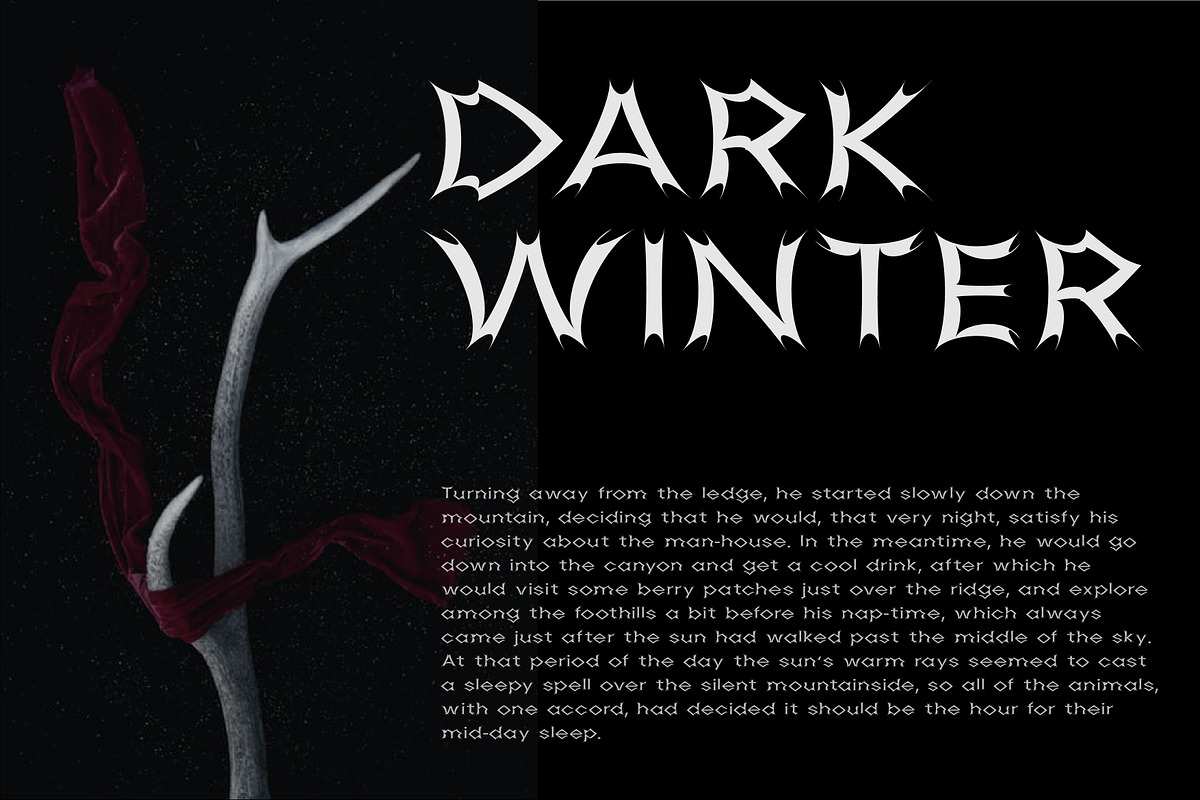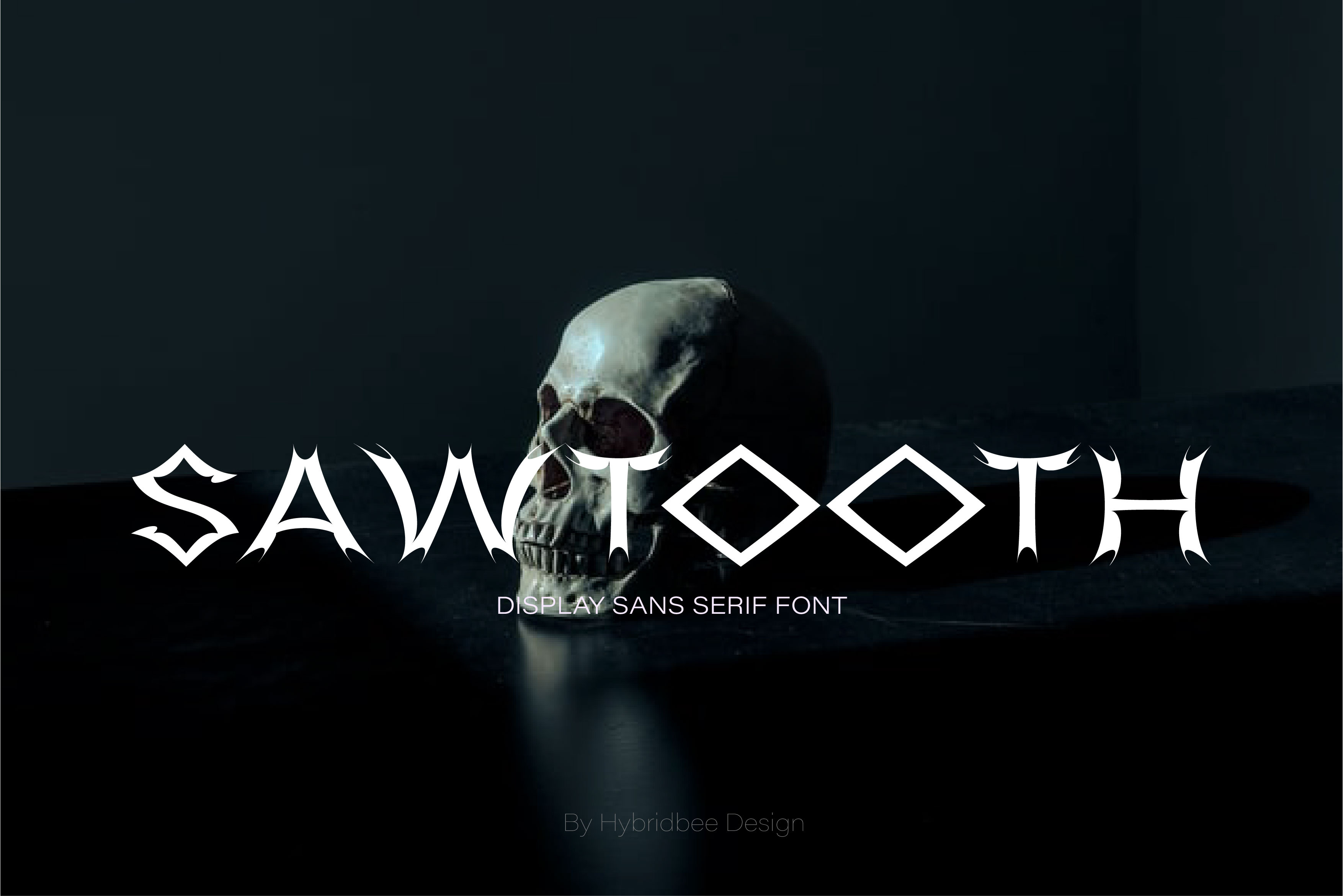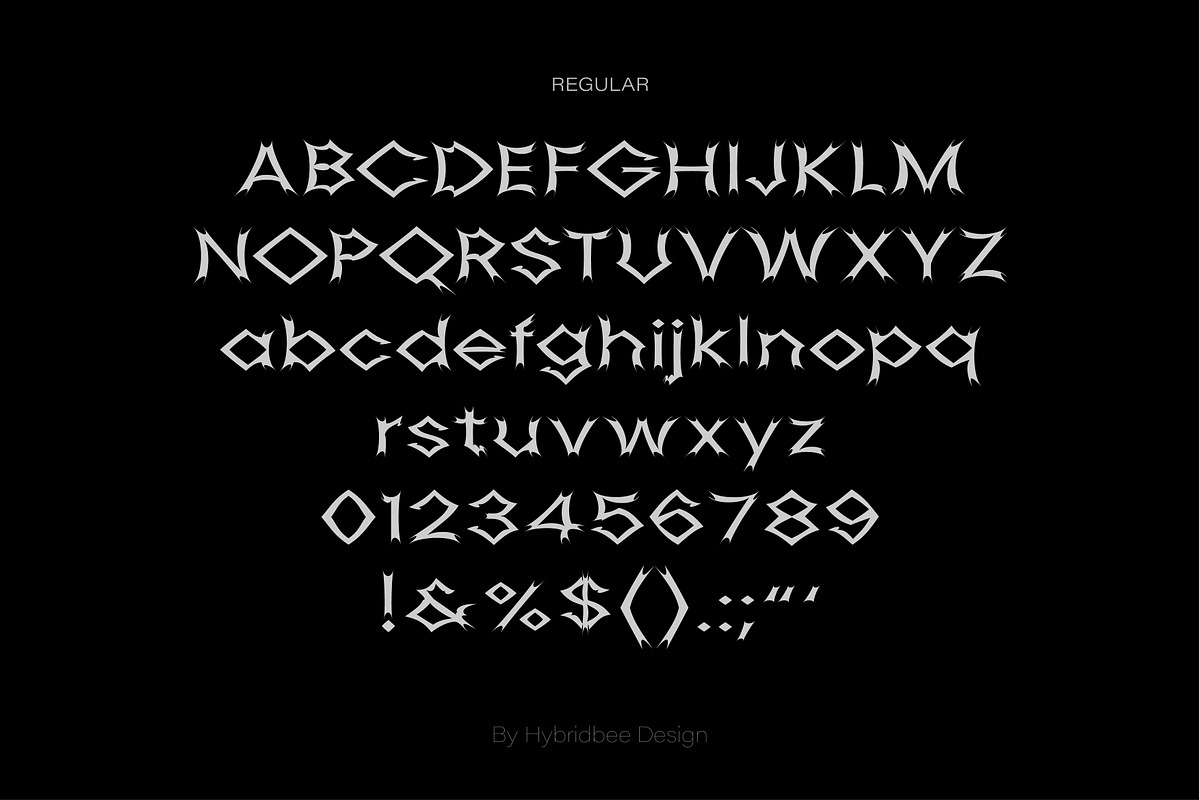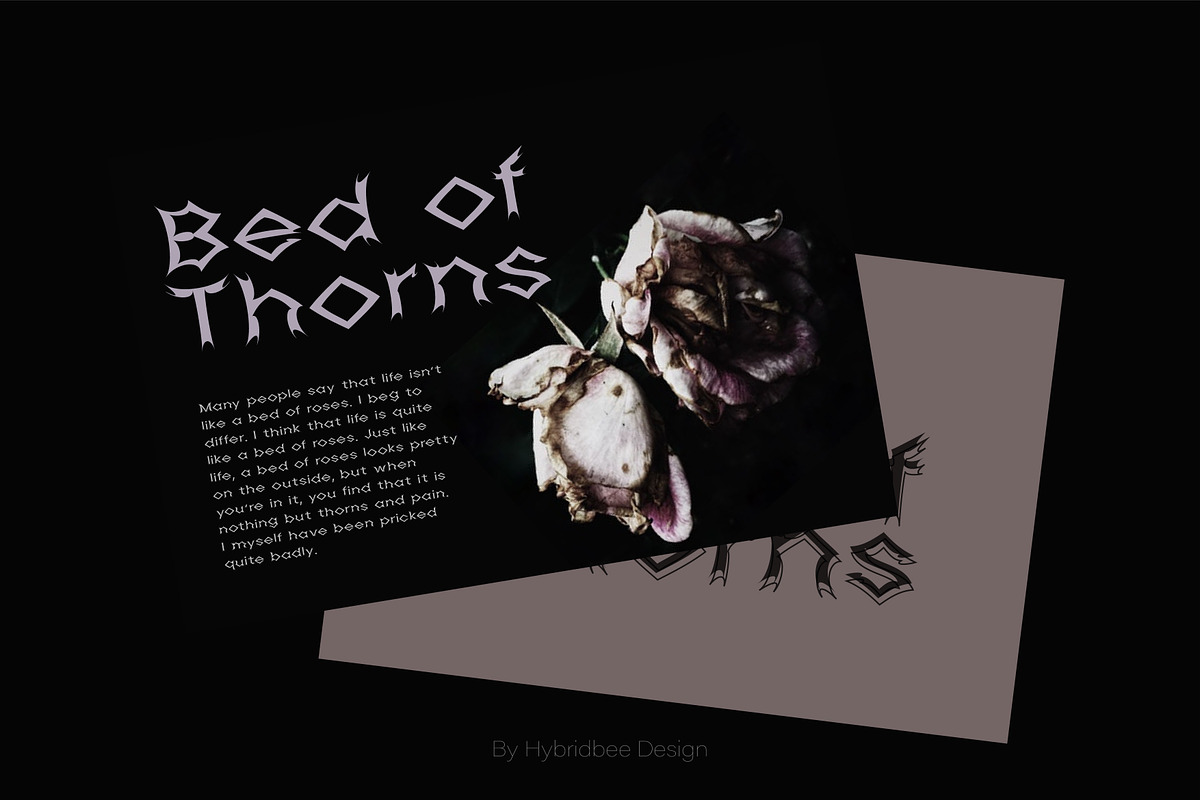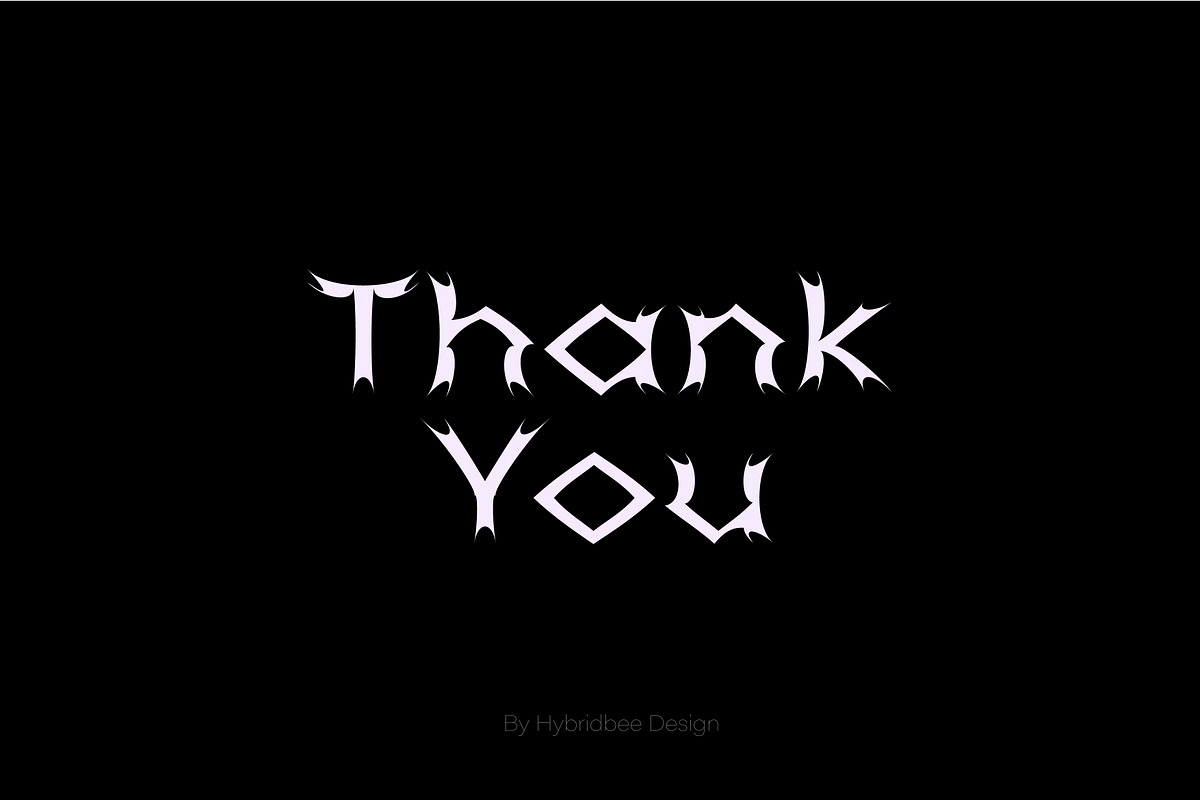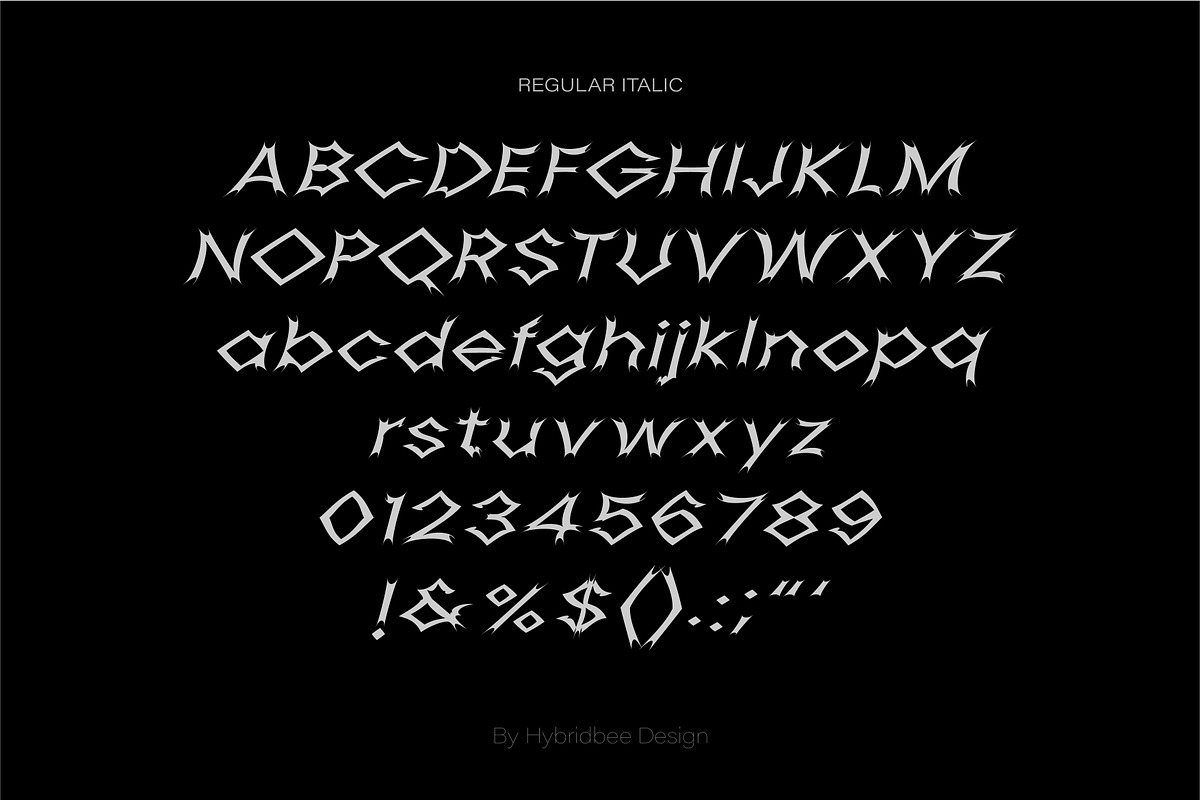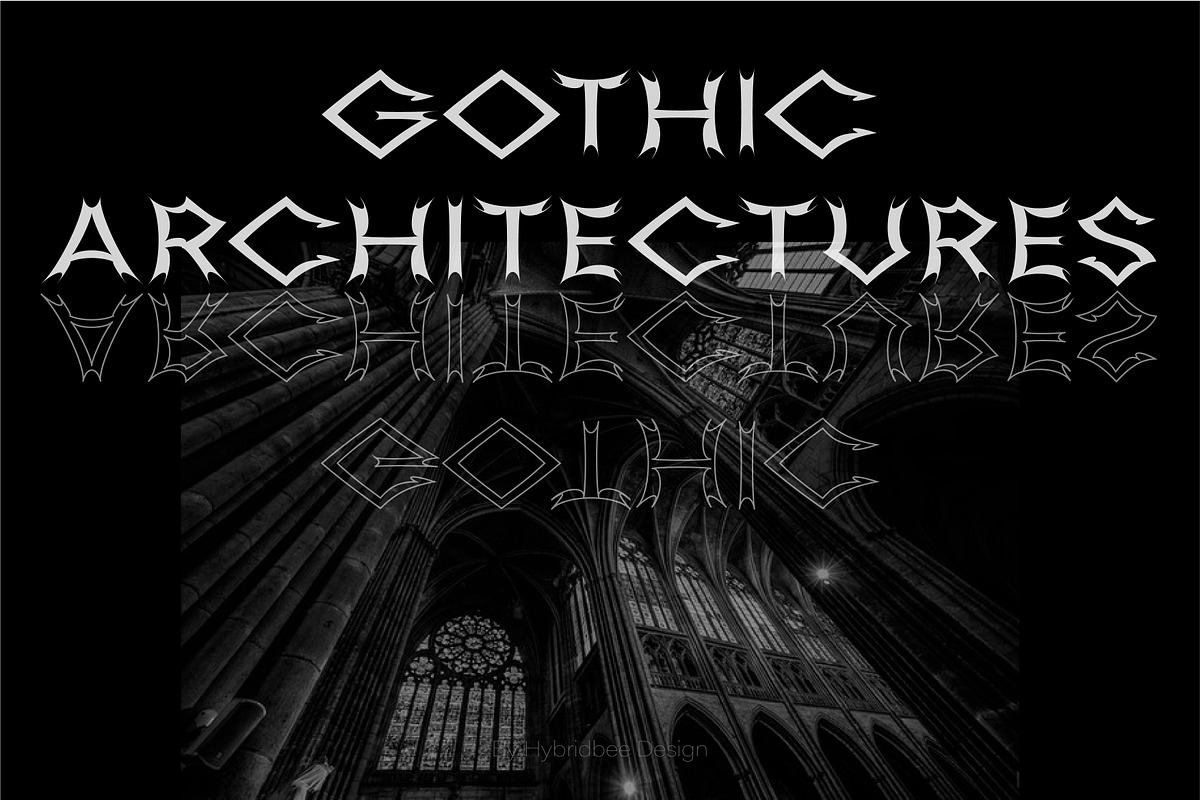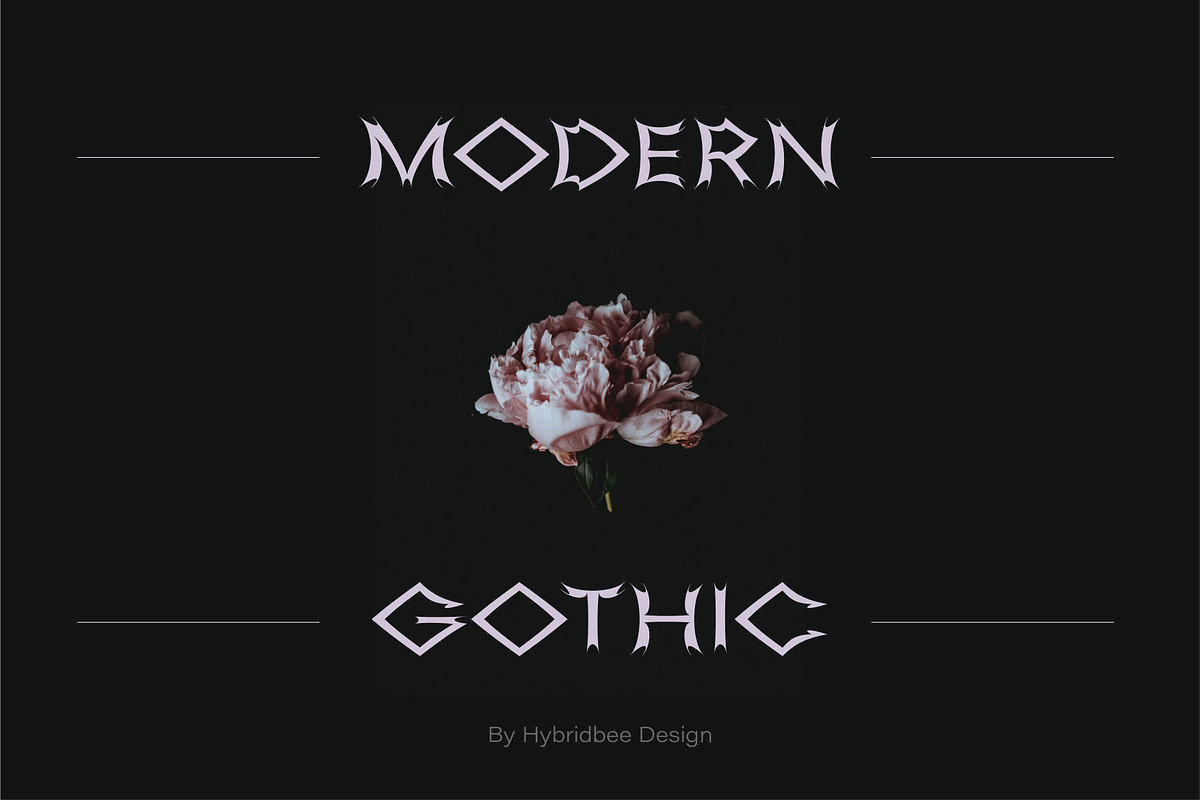
SAWTOOTH - Display Font
Sawtooth – Display Font
Sawtooth is a display font with a contemporary and gothic edge. It includes uppercase letters, lowercase letters, numerals and some punctuations in two weights: regular and italic. It has a unique and artistic style and can be used to create posters, headlines, branding, packaging, logo, web design, etc.